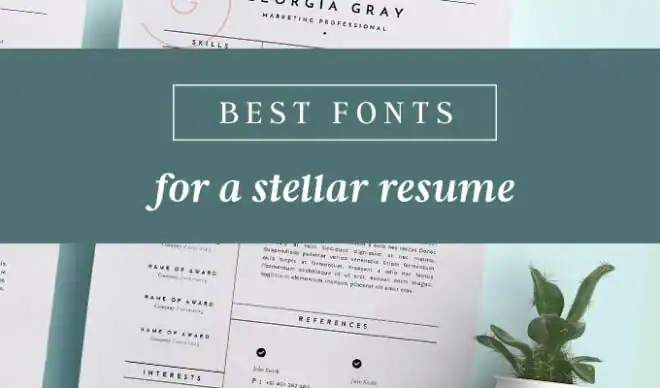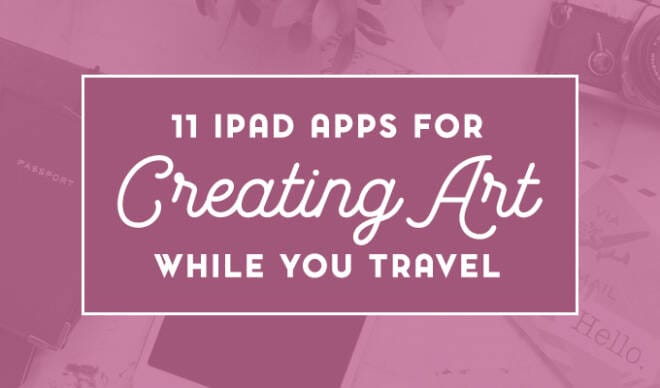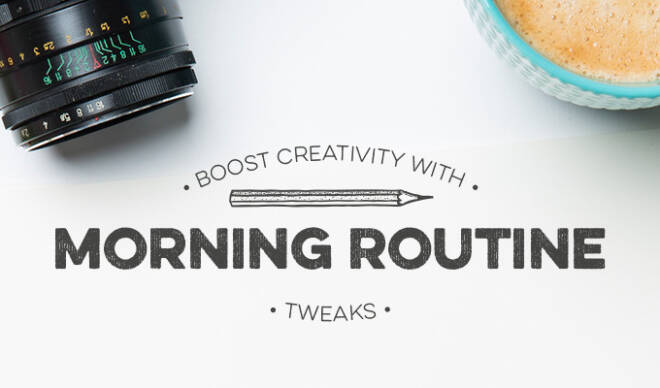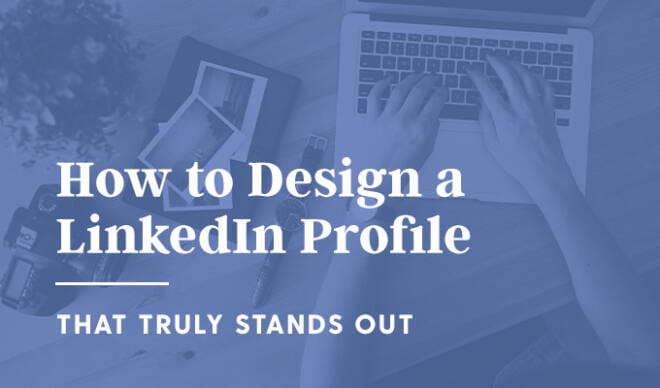
Colors are well-established in the psychology of design and branding. Ninety percent of product decisions are based on color, and although some color associations are culture-based, research shows that the appropriate use of color can be used to enhance a brand’s image. In contrast, studies related to the psychology of typographic design have been much less publicized. Yet, beyond expressing meaning through the text it displays, scientific research has demonstrated a significant relationship between font choice and its effect on viewers and readers. The selection of a typeface has powerful implications for both design and branding, affecting the inferences and meaning others will draw from it. Font choice also influences the overall impression of a type-inclusive design based on legibility as well as look and feel. These four psychological factors of typographic design – inferences, meaning, legibility, and look and feel – play a major role in whether or not a design or marketing piece will have the desired effect.
Inferences
Viewers and readers make many inferences about a design simply from the style of the text, often without realizing how it affects their perception. For example, the application of bold styling to text or a typeface that is bolder than average almost universally indicates weight and importance. This gives more prominence to the text in this font than to other text in the same design. Another example of inferences that are made based on typographic design include italics, which can signify a more subtle emphasis or, in some cases, indicate sarcasm. Spend a few seconds noticing the impact that bolding and italicizing certain words had in the last few sentences.
Other types of typographic symbolism are also universal, and should be used carefully in design. Script fonts are used to imply elegance or sophistication, which is why luxury brands and many wedding invitations often use them.
Visual and Verbal Meaning
Font choice can also serve as a memory aid for viewers, especially when the chosen typeface’s visual style closely matches the verbal meaning of the text. This includes some of the thematic font styles mentioned above, as well as more basic aspects of typography, such as weight and height. According to the Gestalt Theory of Intensity, the word “tall” in an elongated typeface gives an even clearer picture of height than the same word in a typeface with a more average height. This can be seen in a 1986 study showing that a font choice benefited from being similarly featured to the product that it is promoting.
Legibility
The legibility of typographic design is important for more reasons than the ability to read the text. Results from studies in this area of type psychology are almost counter-intuitive: most would assume that a more legible font would facilitate easier recall of text. However, typefaces that are difficult to read increase the time spent reading the text they display, causing readers to slow down and read more carefully. This, in turn, improves memory of the text and its meaning. Of course, there is a point where the level of illegibility far outweighs the benefits of a disfluency that benefits memory.
This same effect of disrupting fluency – slowing down the readers’ usual speed – is also evident when the typefaces in a design are unique or new to the viewer. The novelty of a typeface naturally causes viewers to take special notice, therefore creating better recall. Even though congruency between a typeface style and what it describes can cement a design’s meaning, dissonance between visual and verbal meaning can result in a longer time needed for the reader to process a design.
Conclusion
When it comes to sending a message through design, typeface decisions are just as important, if not more so, than colors. Psychological studies related to typography make it clear that designers must consider the inferences, visual meaning, legibility, and look and feel of selected fonts in order to make their designs as effective as they can be.